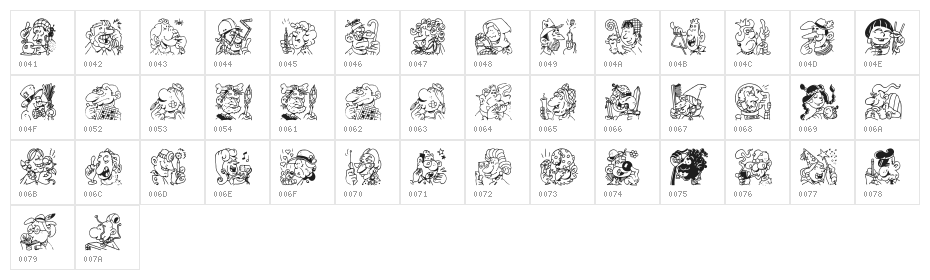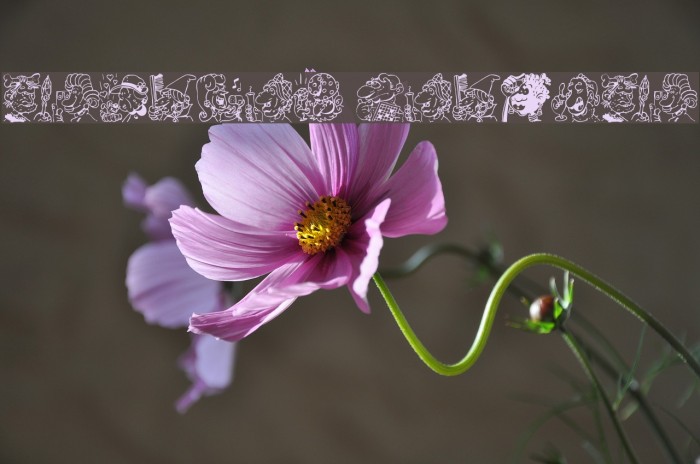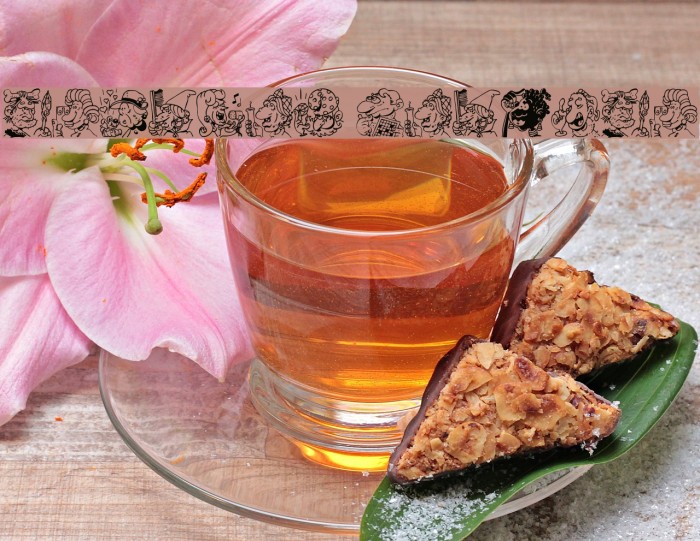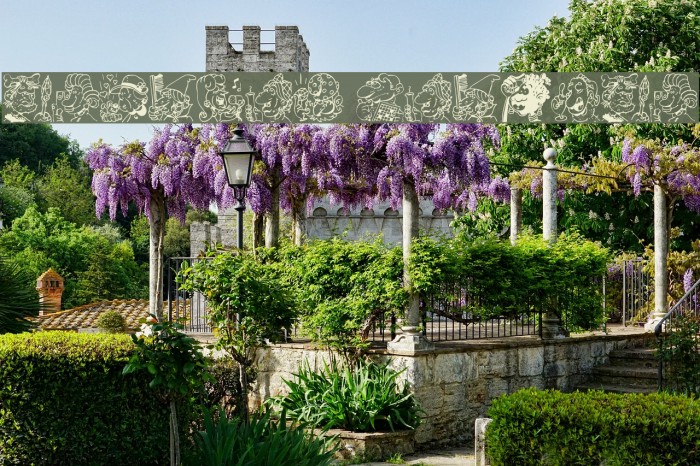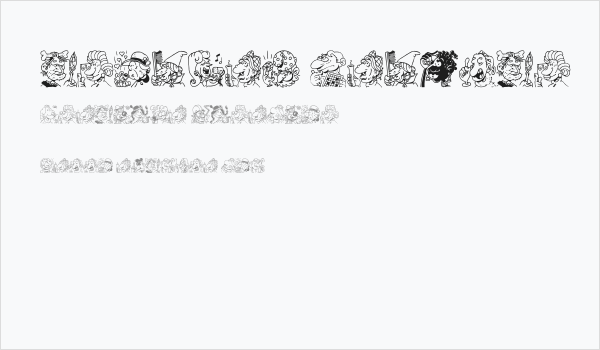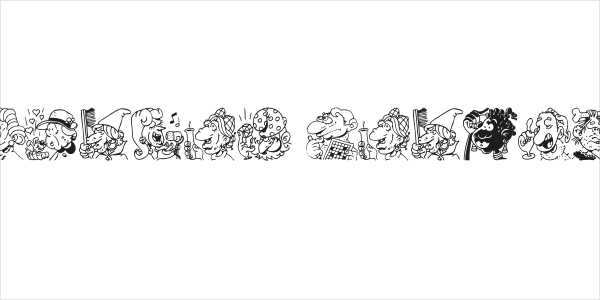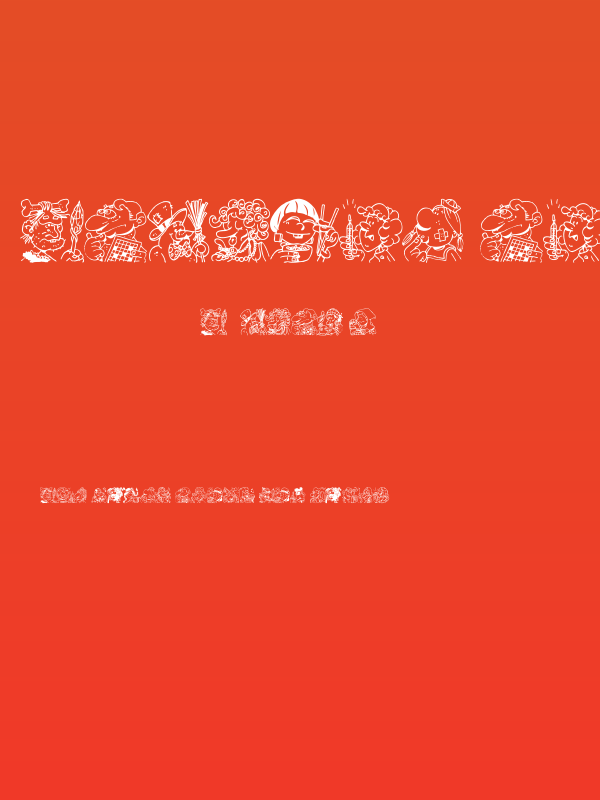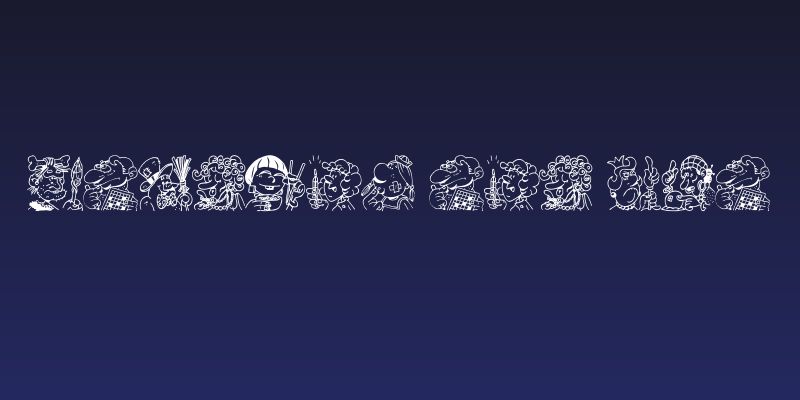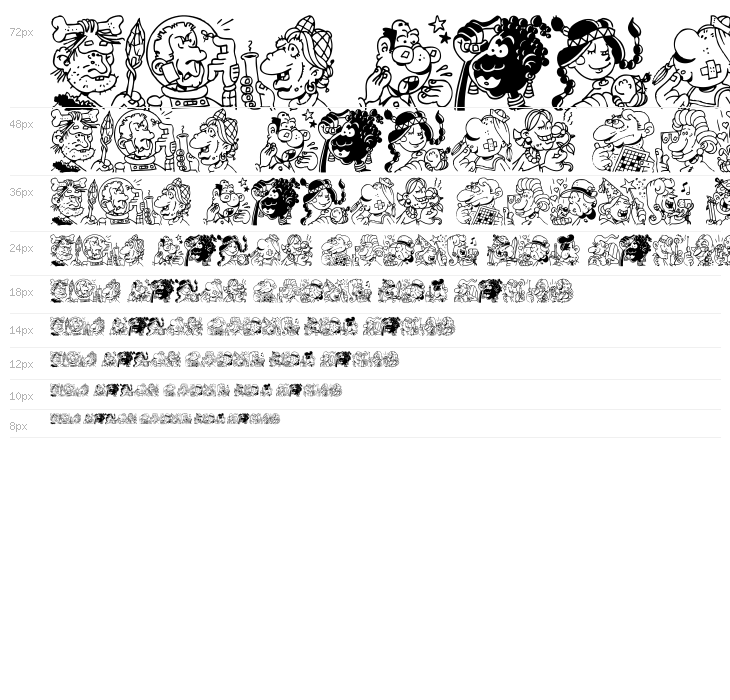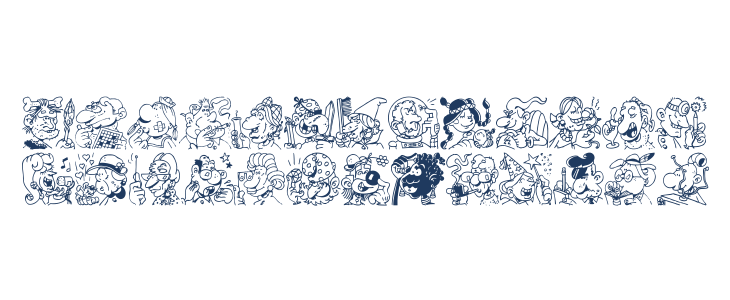
Trognes Regular Font
Trognes Regular Description
A decorative dingbat font featuring a variety of whimsical, hand-drawn cartoon faces and characters, each glyph representing a unique illustration rather than a traditional letterform.
Overall StyleWhimsical, Playful, Cartoonish
Use CaseDecorative elements, Illustrative accents, Themed graphics
Proposed ProjectsChildrenÒ€ℒs books, comic strips, playful branding, party invitations, educational materials, decorative borders.